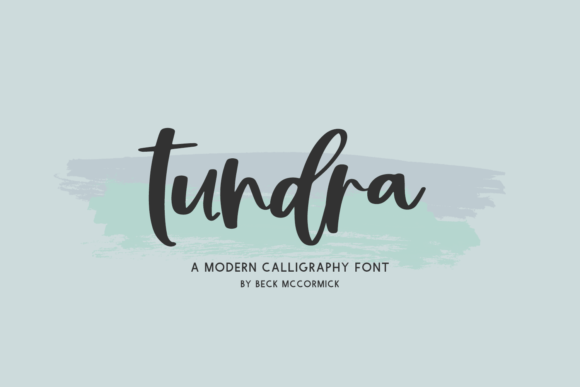
Introducing Tundra Script Font, the epitome of elegance and refinement. Created by the talented BeckMcCormick, this font is a true work of art that will captivate your audience and elevate your designs to new heights.
With its impeccable script style, Tundra exudes sophistication and class like no other. The sweeping curves and refined lines of this font create a mesmerizing visual experience that is sure to leave a lasting impression. Whether you're designing wedding invites, branding materials, or social media graphics, Tundra is the perfect choice to add a touch of elegance.
Imagine your wedding invitations adorned with the graceful strokes of Tundra Script Font. Each letter dances on the page, creating an enchanting atmosphere that sets the tone for your special day. Your guests will be in awe of the exquisite beauty and attention to detail that Tundra brings to your stationery.
Branding materials are the backbone of any successful business. With Tundra, you can convey a sense of sophistication and professionalism that will make your brand stand out from the crowd. From logos to business cards, this font will elevate your visuals and leave a lasting impression on potential clients and customers.
Social media is all about catching the eye and making a statement. Tundra Script Font is the perfect tool to create scroll-stopping graphics that demand attention. Its captivating style and unique flair will make your posts stand out in a sea of mediocrity, attracting more likes, shares, and engagement.
In conclusion, Tundra Script Font is more than just a font. It's a key to unlocking the world of elegance and refined design. With its sweeping curves, refined lines, and impeccable script style, this font will take your designs to the next level. Whether it's for wedding invites, branding materials, or social media graphics, Tundra is the perfect choice to add a touch of sophistication and class. Download Tundra today and let your creativity soar.